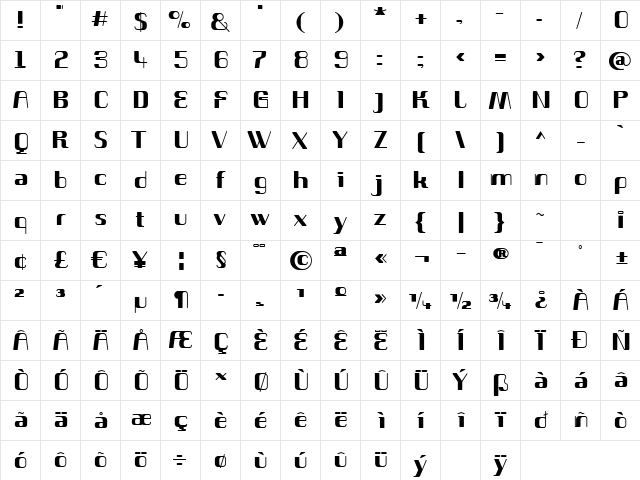
RomeroHeavy Regular
Design Context for RomeroHeavy Typeface
RomeroHeavy is a composed and adaptable typeface that performs quietly and consistently across a wide range of design contexts.
Pro Tip: Use RomeroHeavy in both headline and body roles to test its range before committing to a single application.